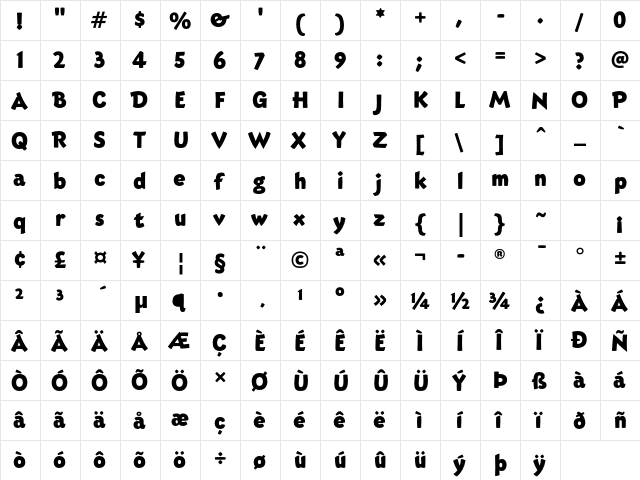
Eborg ITC Std Regular
| Designer | George Ryan |
Design Context for Eborg ITC Std Typeface
Eborg ITC Std is a composed and adaptable typeface that performs quietly and consistently across a wide range of design contexts.